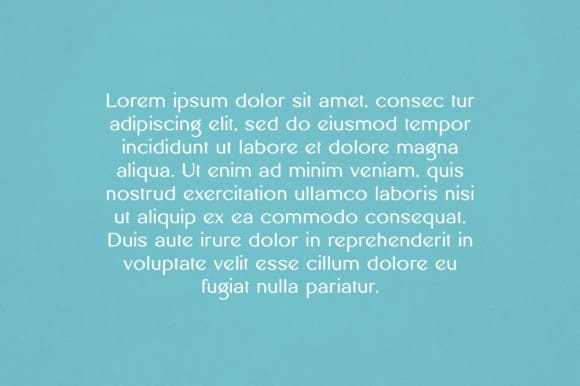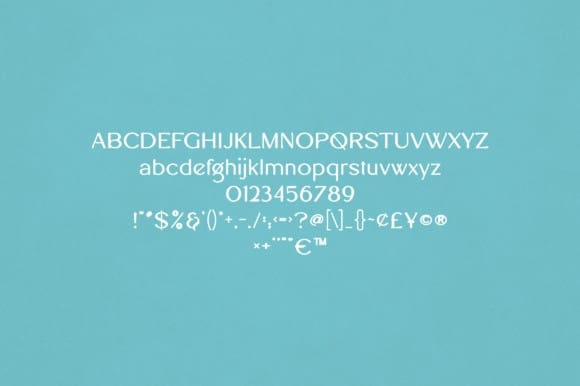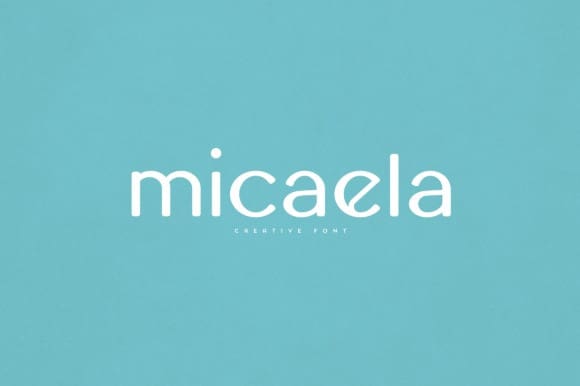
Micaela Font
Micaela Font is an elegant and versatile font that will make your typography truly unique! It will enchant every logo, branding, headline, or plain text!